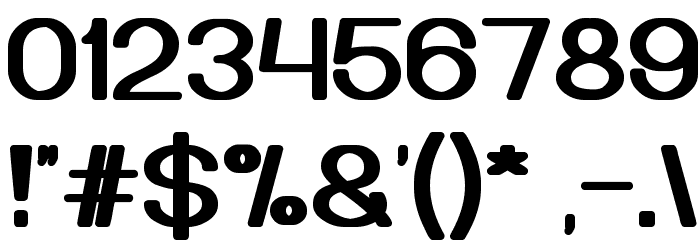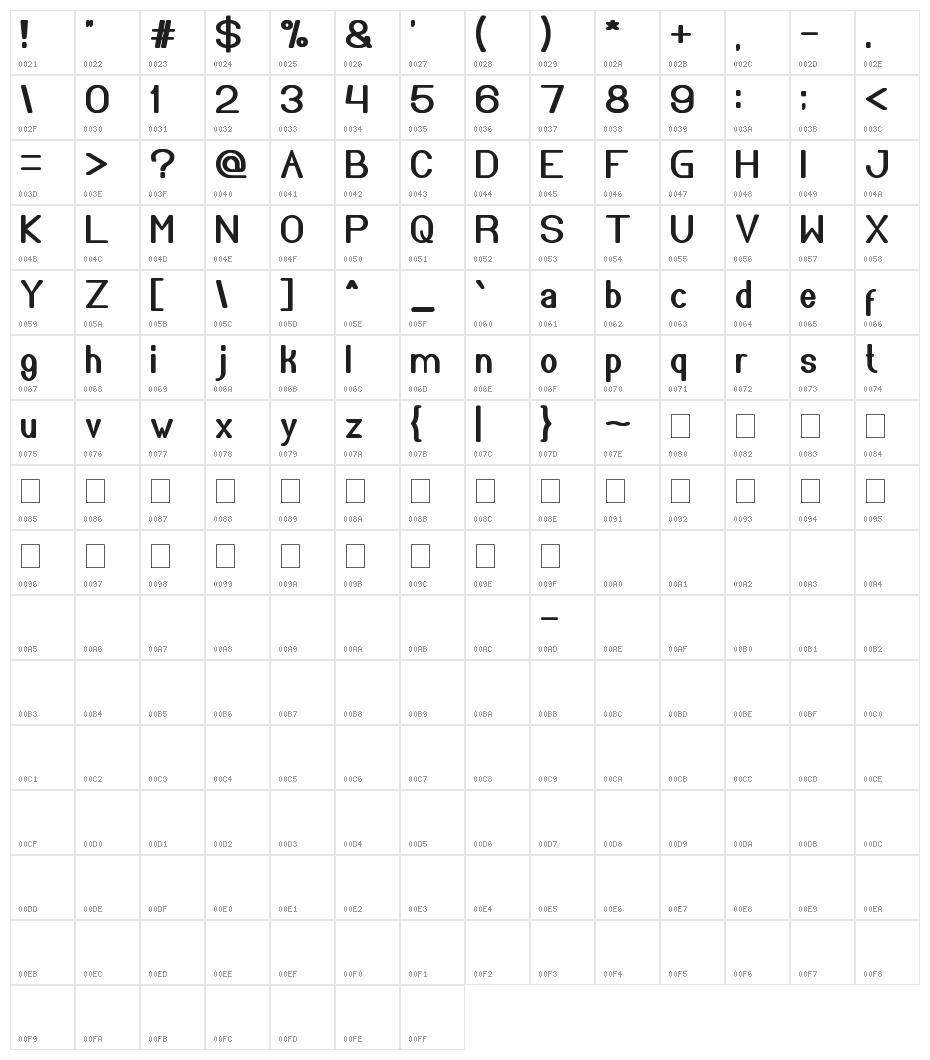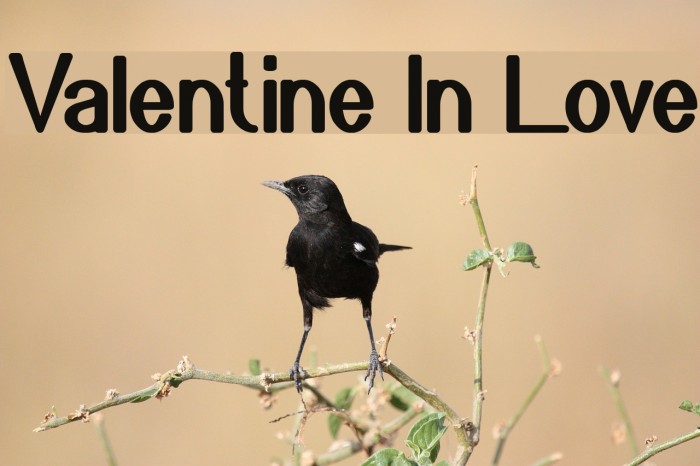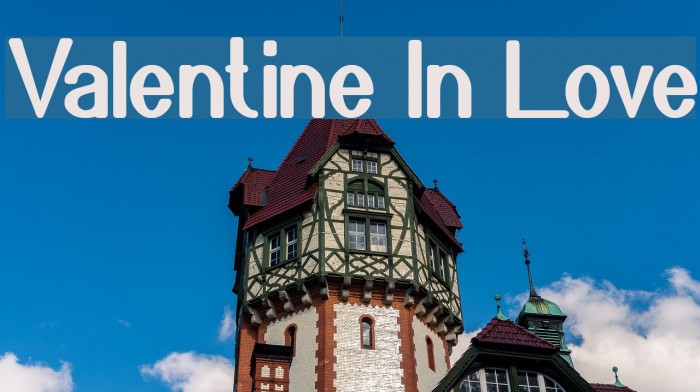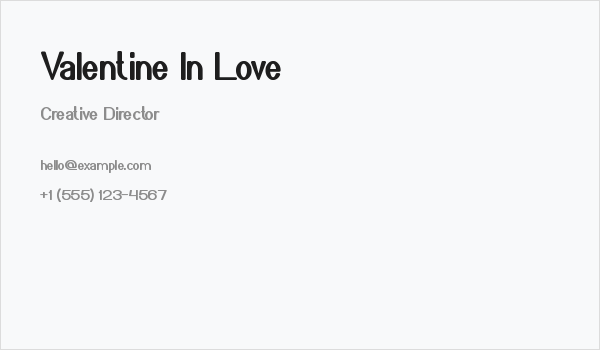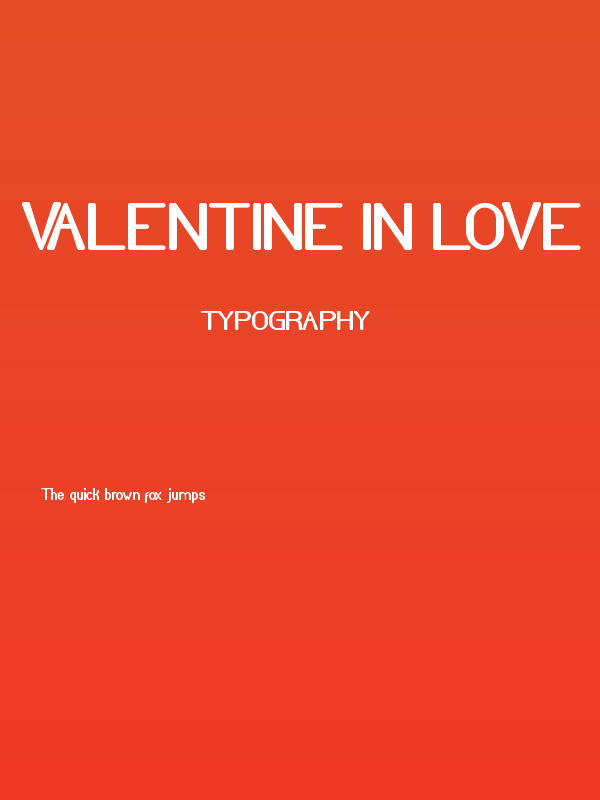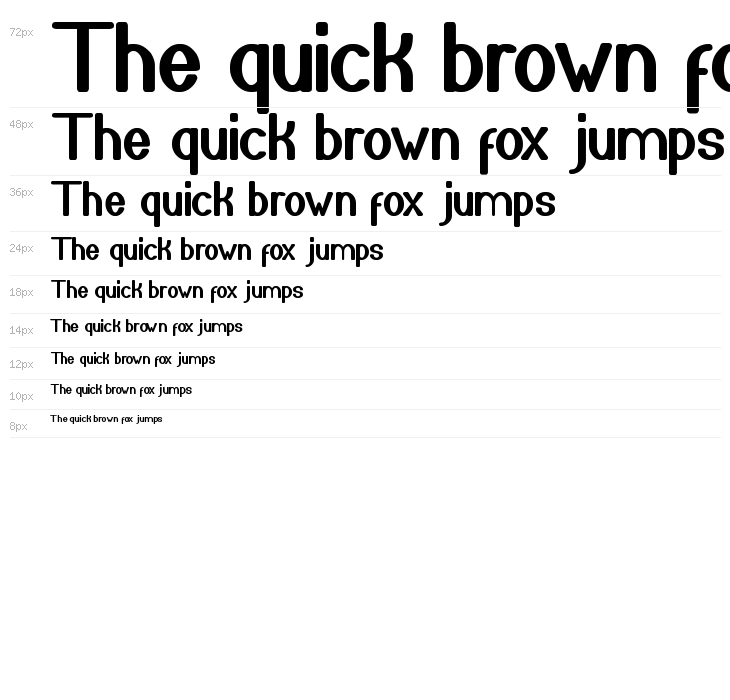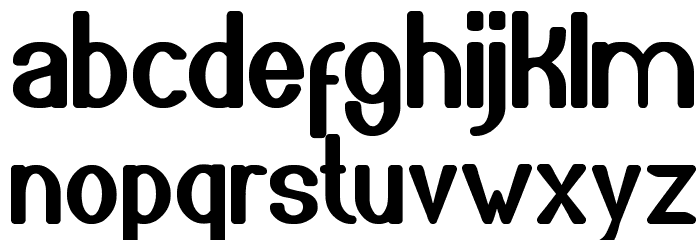
Valentine In Love Font
Valentine In Love Description
This font features a playful and rounded design, characterized by its smooth curves and uniform stroke width. The uppercase letters are bold and slightly condensed, giving a modern yet friendly appearance. The lowercase letters maintain the same rounded aesthetic, with a consistent height that complements the uppercase. Numbers and special characters are designed to match the overall style, ensuring a cohesive look across all text elements. The font's simplicity and readability make it versatile for various design applications.
| Proposed Projects | Ideal for children's books, playful branding, greeting cards, and casual digital content. |